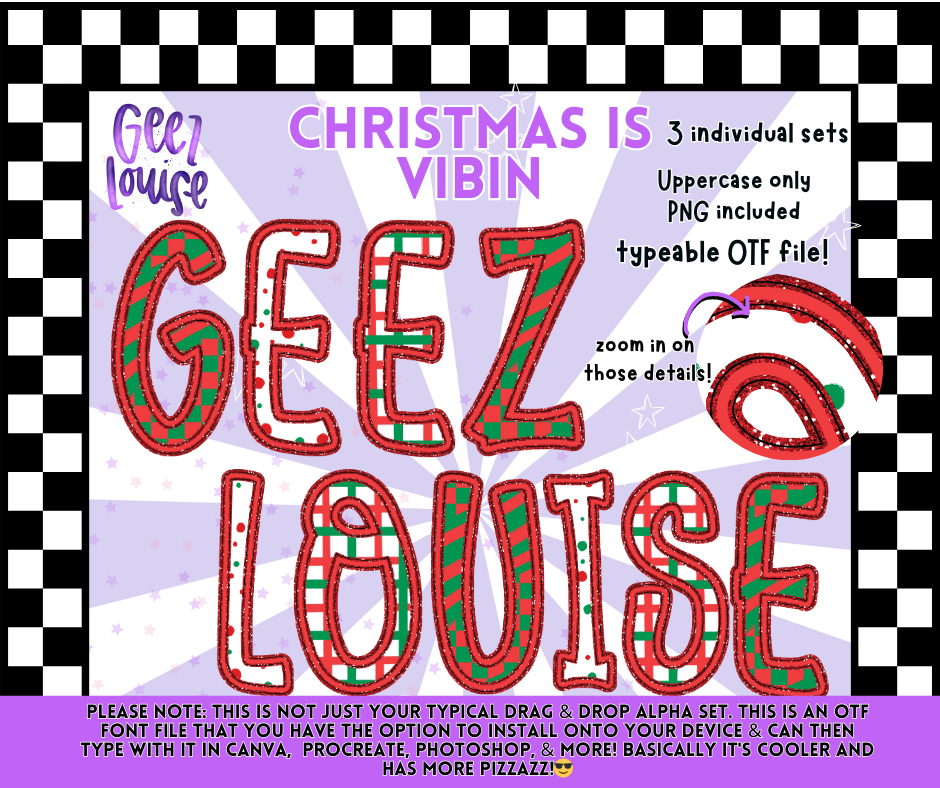
Christmas Vibin — Typeable OTF Font + PNG
Red glitter. Green stripes. Full sleigh mode. This font isn’t just vibin—it’s jingling, sparkling, and screaming in uppercase. Designed for creators who want their holiday type to feel like a peppermint meltdown with pizzazz.
• 3 individual sets – Each one packed with festive flair and holiday chaos